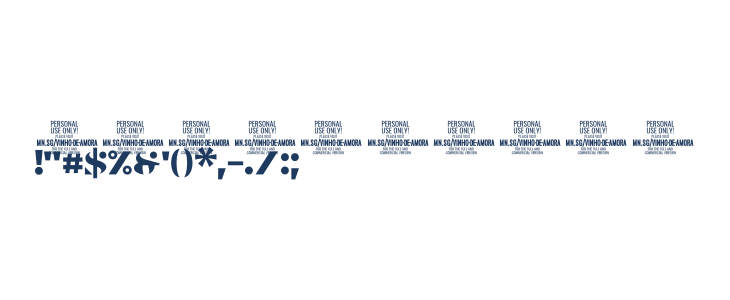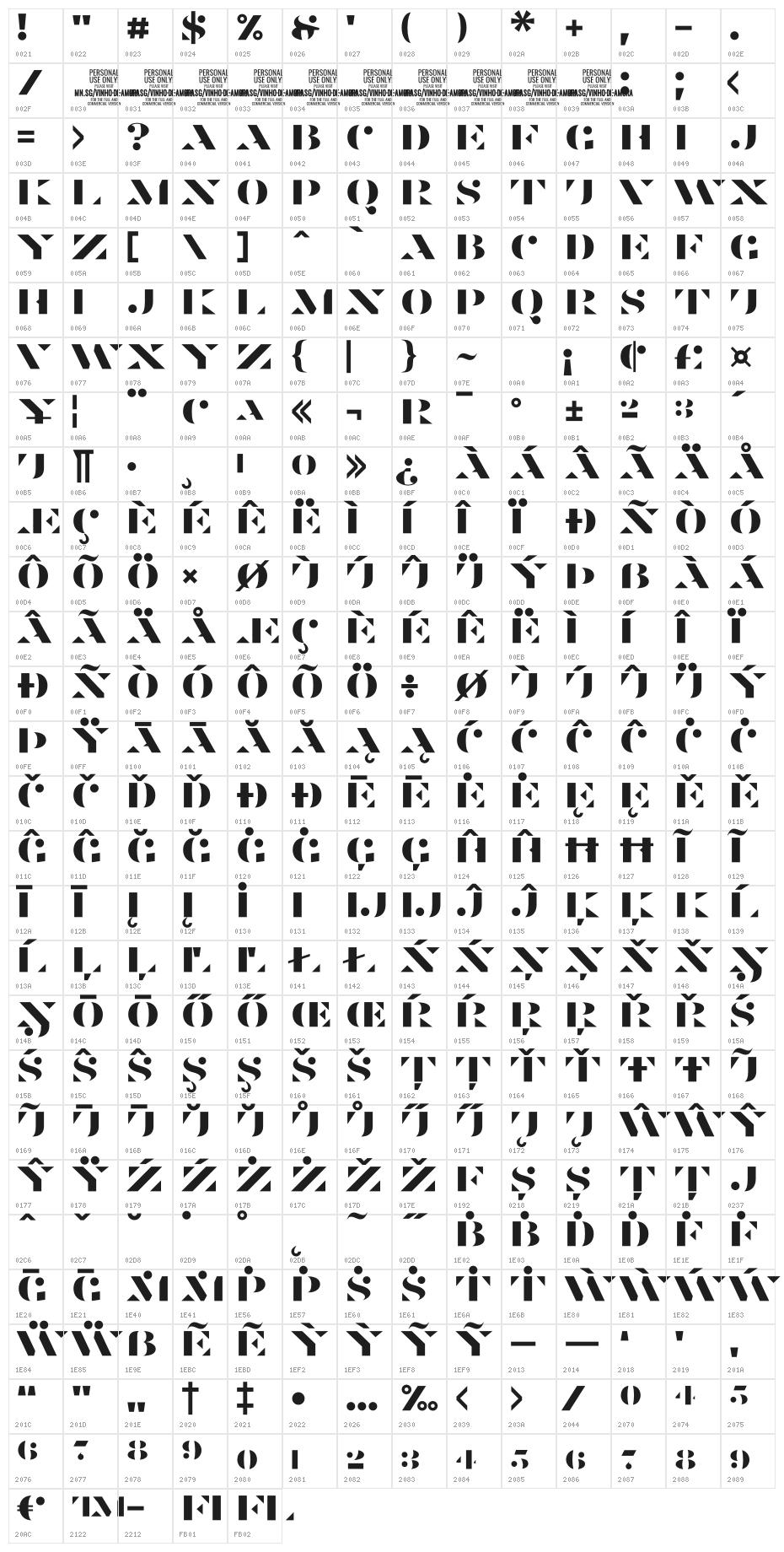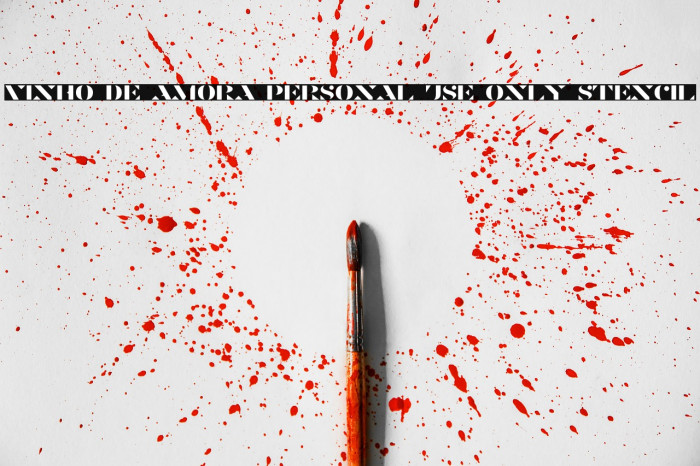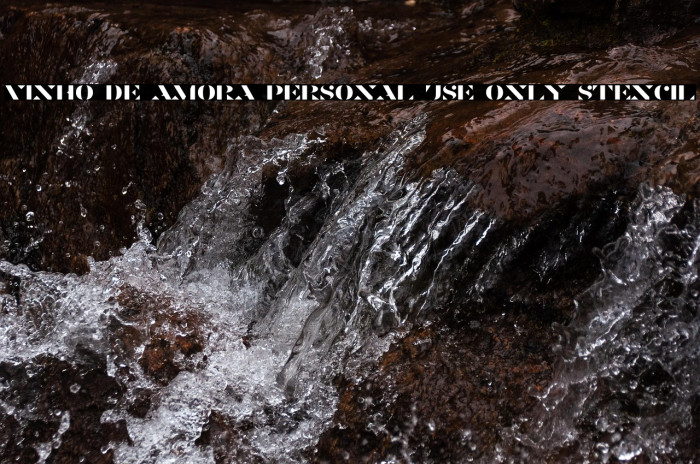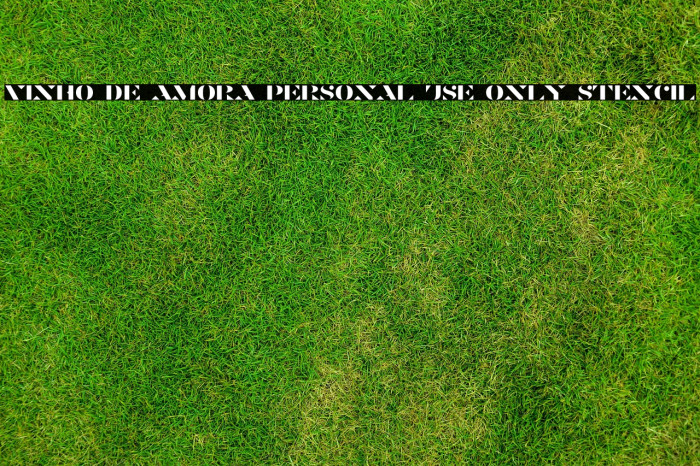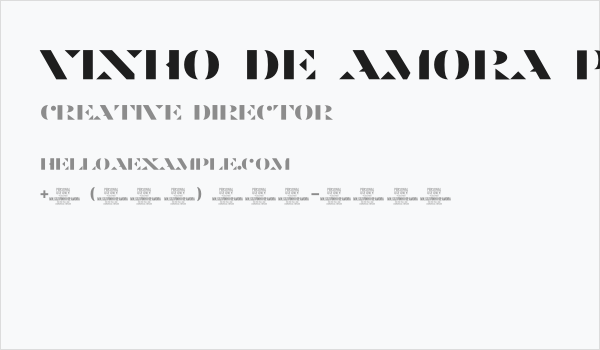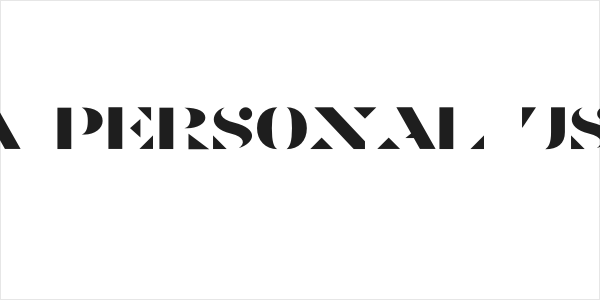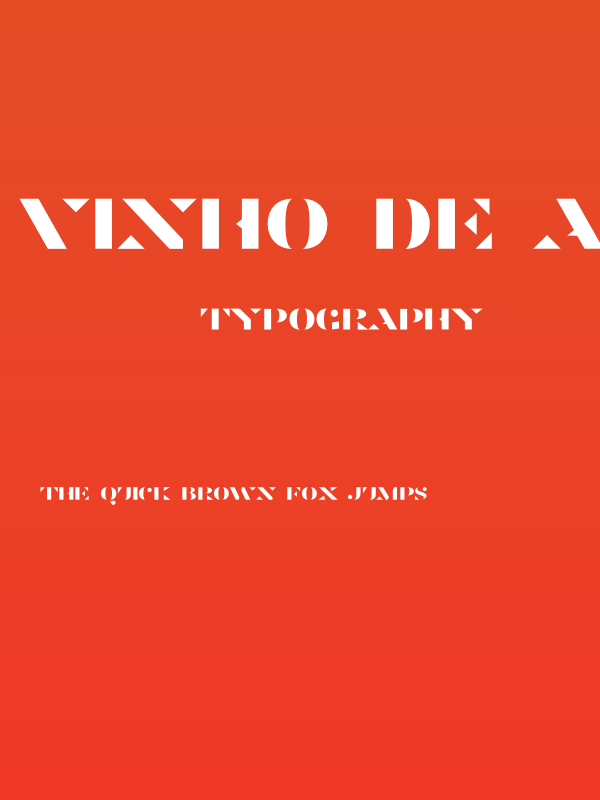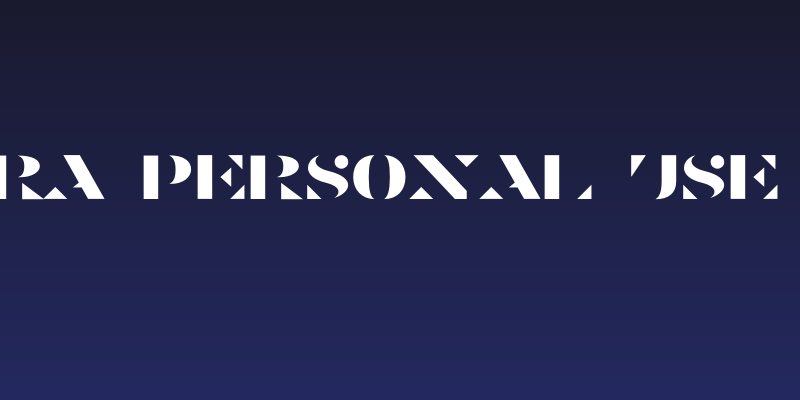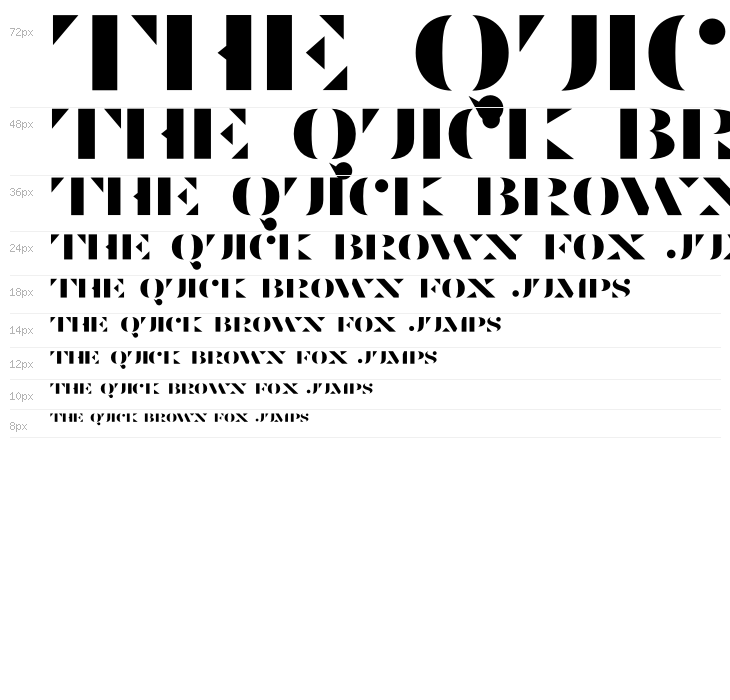
Vinho De Amora PERSONAL USE ONLY Stencil Font
Vinho De Amora PERSONAL USE ONLY Stencil Description
This font features a bold, stencil-like design with distinct geometric cuts and sharp angles, creating a modern and industrial aesthetic. The uppercase letters are particularly striking, with each character exhibiting unique cutouts that enhance its visual appeal. The font maintains a consistent weight throughout, emphasizing its boldness and making it highly legible even from a distance. The special characters follow the same design principles, ensuring uniformity across all symbols. This font's unique style makes it ideal for projects that require a strong, impactful visual presence.
| Proposed Projects | Ideal for branding, posters, signage, and any project needing a strong, impactful typeface. |